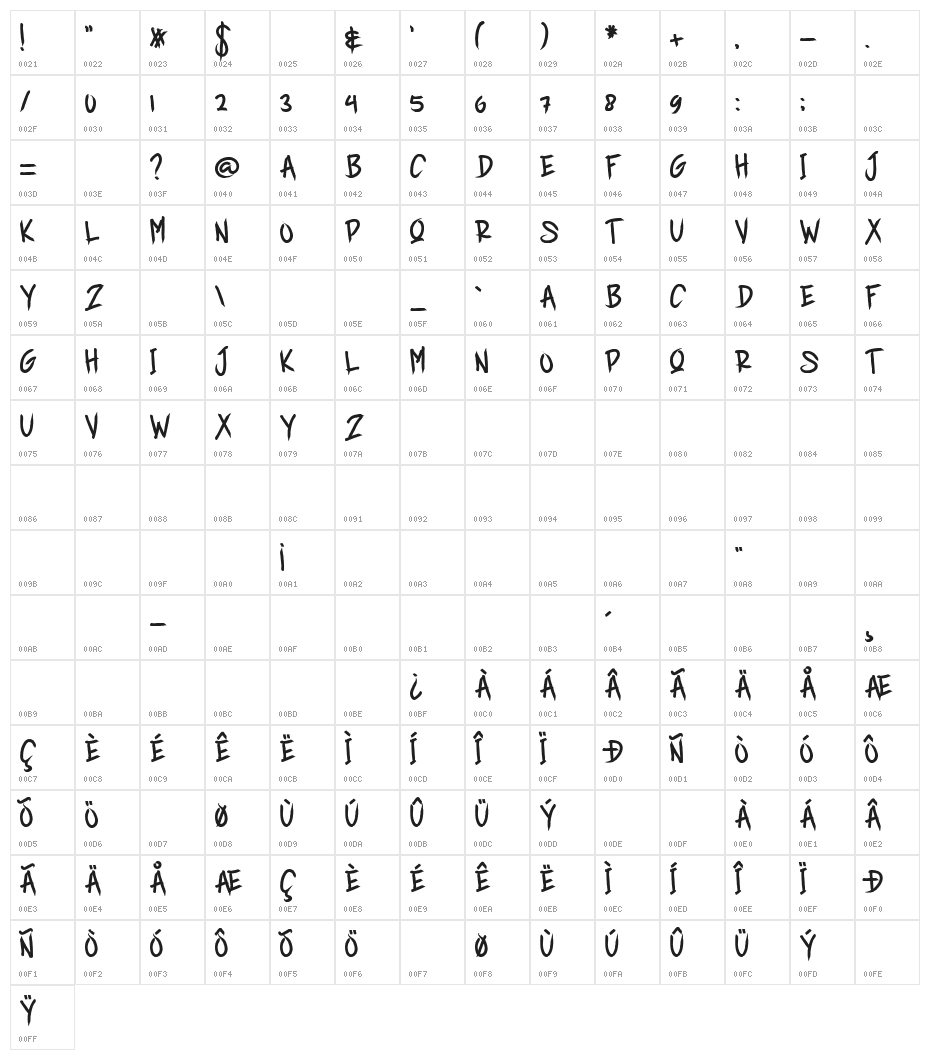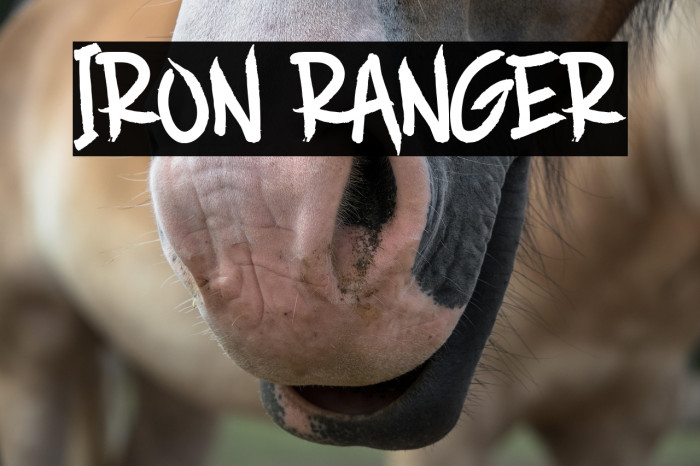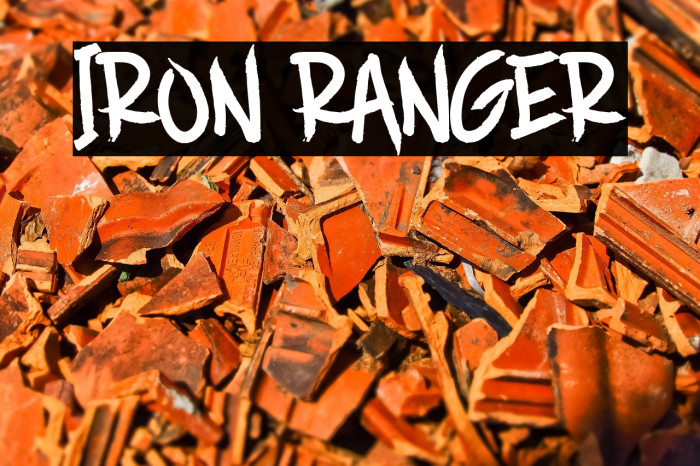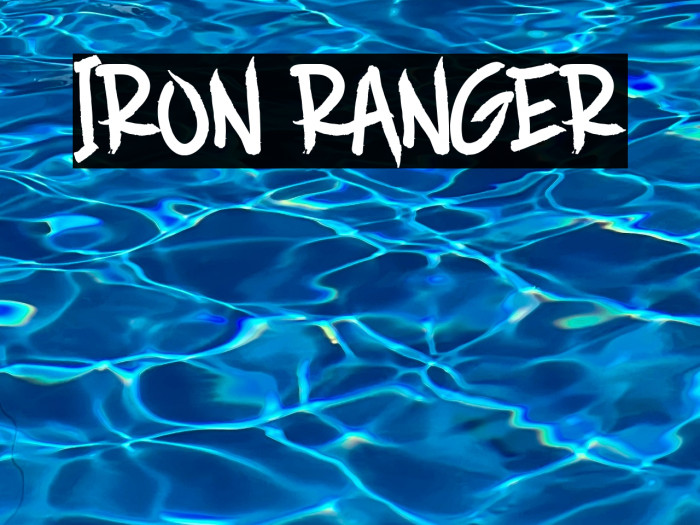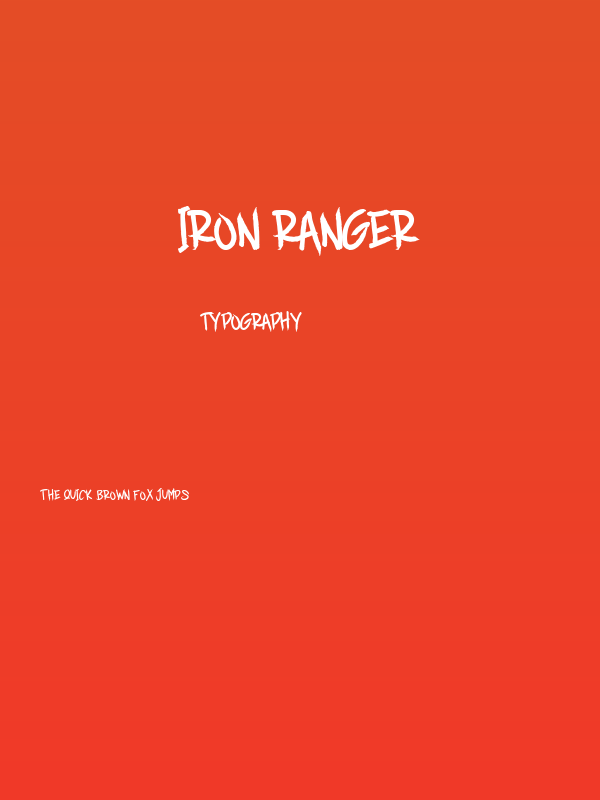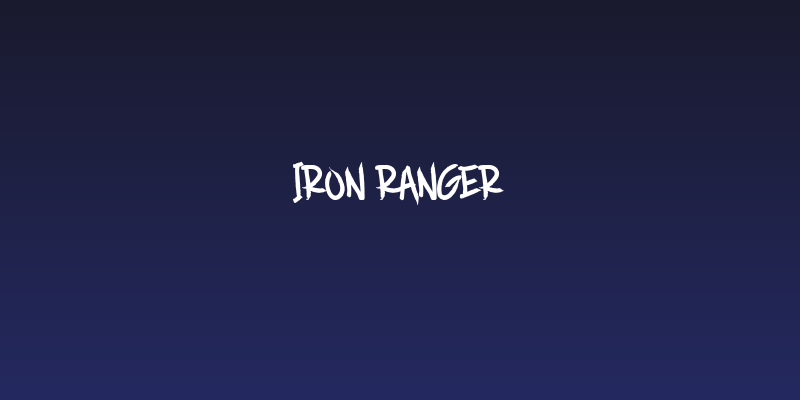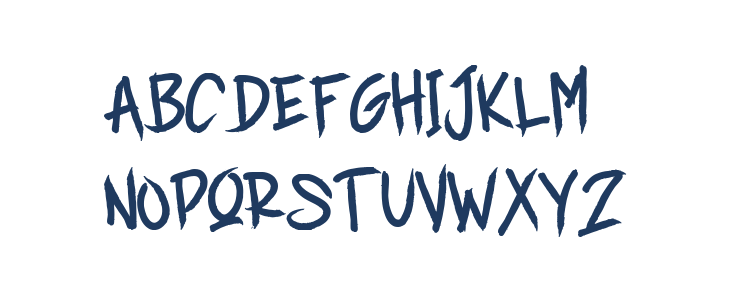
IRON RANGER Font
IRON RANGER Description
This font features a bold, brush-like appearance with a dynamic and energetic style. The strokes are irregular, giving it a hand-drawn feel that adds a sense of movement and spontaneity. The uppercase and lowercase letters maintain a consistent style, with some letters like 'R' and 'S' having unique, artistic flares. The numbers and special characters follow the same expressive design, making the font suitable for creative and informal applications. Its distinctive look is perfect for projects that require a personal touch or a bold statement.
| Proposed Projects | Ideal for posters, logos, branding, and any project needing a bold, artistic touch. |